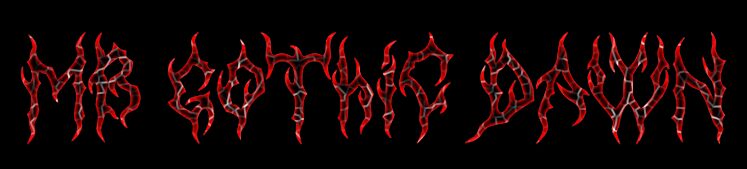
MB-GothicDawn
MB-GothicDawn by ModBlackmoon is a free gothic display font with warped, flame-like letters, pinched openings, abrupt changes in stroke width, sudden curves, and a ragged silhouette reminiscent of underground metal logos. Sharp hooks break up the heavier shapes.
The thorn and flame motifs connect readily with occult illustration, horror game graphics, and extreme-metal artwork, making the lettering part of a menacing image rather than a neutral caption. They also suit concert posters and dark screen-printed merchandise, where the repeated points can echo bare branches, licking fire, claws, or hand-drawn borders.